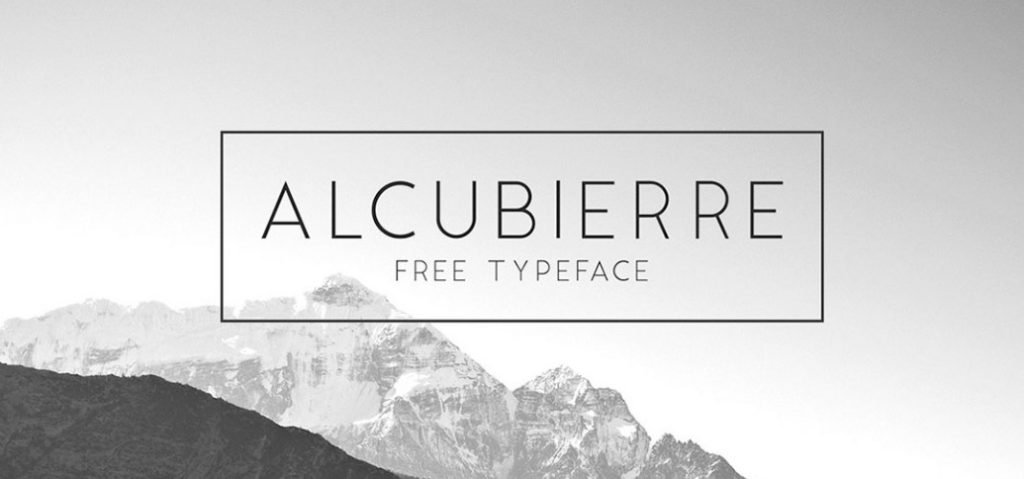
There are many typefaces available that play a vital role in the designing of great website designs, UI designs, and other graphic design projects. Here we are sharing you with the Alcubierre Font that would be the ideal choice.
This is the sans-serif typeface that was the creation of Matt Ellis. This is elegant looking typeface that when used with courier font provides the design that is the visual treat for eyes.
This is an ideal font because of the fact that it has wide language support of over 100+ languages including Cyrillic and Latin. This is also great for its usage inside PowerPoint presentations, infographics, and many other projects.
View of Alcubierre Font
The font contains a majestic look and styles you can see in the sample of the font.
You can get the advantage of this minimal looks to designs various projects. Some of great project ideas are given below that can create by using this typeface.
- Promotional videos
- Annual reports
- Stadium branding
- Trailers
- Event and conference spaces
- Brochures (print and digital)
- Banners
- GIFs
- Event and conference spaces
- Books
| Designer | Matt Ellis |
What Type of Font Is Alcubierre?
Alcubierre is one of the best geometric sans serif typeface that can be used for a variety of projects.